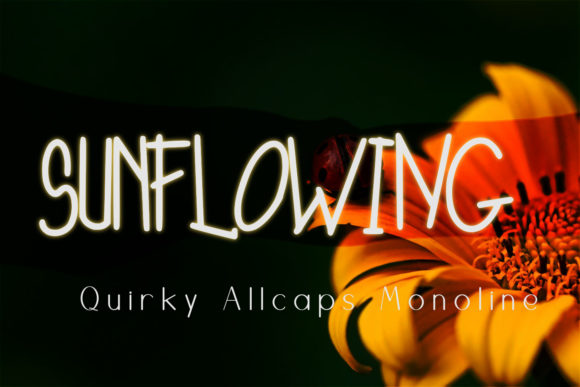
Behold Sunflowing Font, a captivating sans serif creation by setiyadissi, designed to bring charm and uniqueness to your projects. Its meticulously crafted characters exude playfulness, warmth, and a touch of nostalgia, making it the perfect choice for designers seeking to evoke a sense of joy and whimsy in their work.
Step into a world of endless creative possibilities as you explore the versatile nature of Sunflowing Font. Its playful curves and distinctive letterforms lend themselves effortlessly to a wide range of design applications, from eye-catching logos and branding materials to cheerful invitations and heartwarming holiday greetings. Let your imagination soar as you discover the boundless potential of this versatile font.
With Sunflowing Font as your creative companion, you can effortlessly craft designs that radiate warmth and charm. Its delightful personality shines through in every word, adding a touch of playfulness and delight to your messages. Imagine the smiles that will grace the faces of your audience as they encounter your captivating creations, leaving a lasting impression that lingers in their minds.
Whether you're a seasoned designer seeking inspiration or a novice just starting your creative journey, Sunflowing Font is the perfect choice to elevate your projects to new heights. Its user-friendly nature makes it accessible to designers of all skill levels, allowing you to harness its charm and create designs that captivate and inspire.
So, embark on a creative adventure with Sunflowing Font and let your imagination run wild. Discover the joy of creating designs that resonate with your audience, leaving them enchanted by your artistic vision. Unleash the power of Sunflowing Font today and unlock a world of creative possibilities.